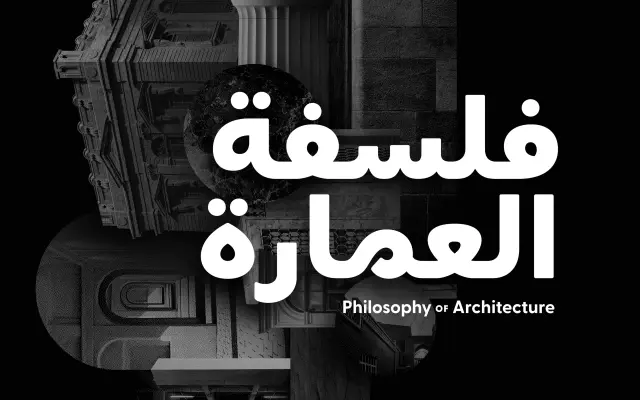
Greycliff Arabic CF
A multiscript extension of Greycliff CF that brings the same soft geometric construction to Arabic, Persian and Pashto alongside Latin.
Nine weights span both Latin and Arabic scripts, keeping optical weight and geometric character consistent across writing systems. Arabic diacritics are included alongside broad language support covering Modern Standard Arabic, Persian, Pashto and Urdu, as well as an extensive Latin range for European languages. Designed as a self-contained type system, it suits multilingual branding, app interfaces and editorial work where the two scripts must coexist without visual conflict.
Greycliff Arabic CF is a geometric sans-serif, extending the rounded, geometric Latin design of Greycliff CF into the Arabic script with matching optical weight and character across both writing systems.